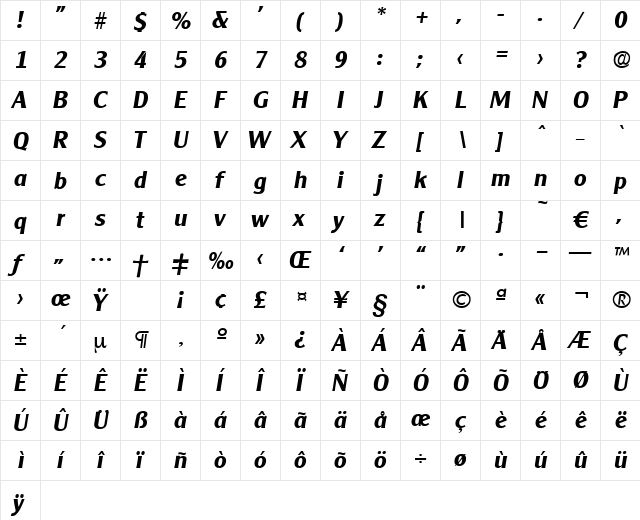
Cleargothic-DemiBoldIta Regular
Design Context for Cleargothic-DemiBoldIta Typeface
Cleargothic-DemiBoldIta takes a clean, functional approach — its unadorned letterforms prioritise legibility and work reliably across screen and print environments. The heavy weight commands attention and anchors typographic hierarchies.
Font Pairing: Works well alongside a characterful serif or display font that can carry the expressive load while Cleargothic-DemiBoldIta handles the functional copy.
Pro Tip: Use Cleargothic-DemiBoldIta for UI labels, navigation, and short-form body copy where clean legibility is the priority.